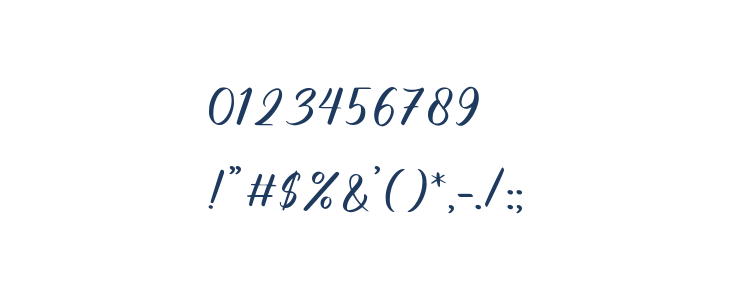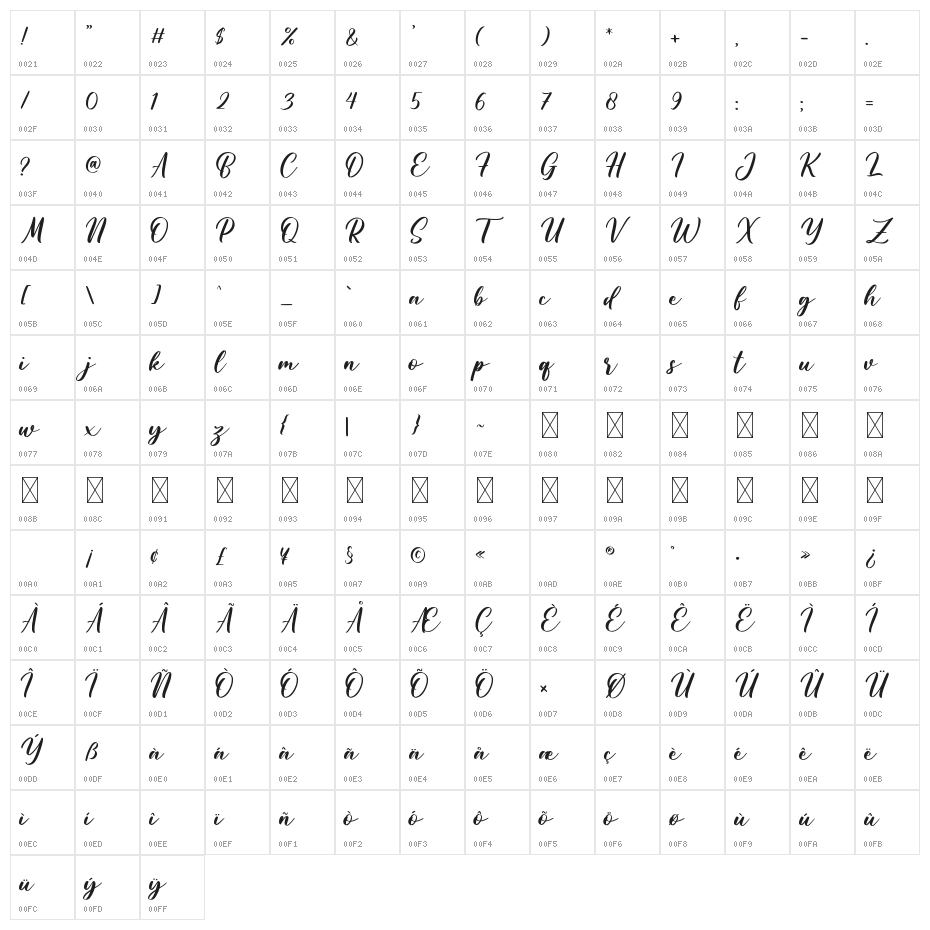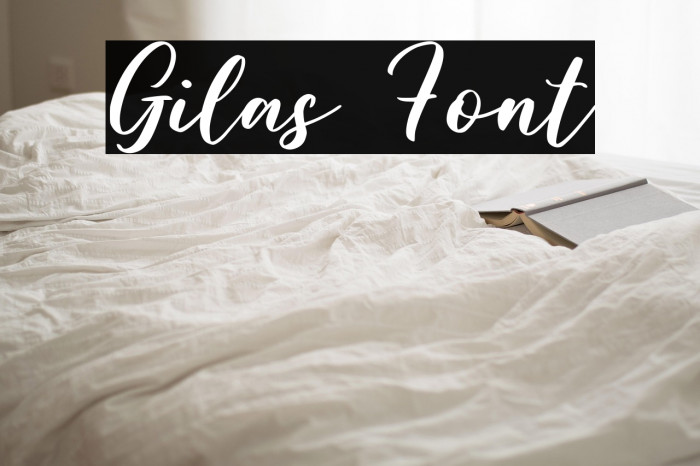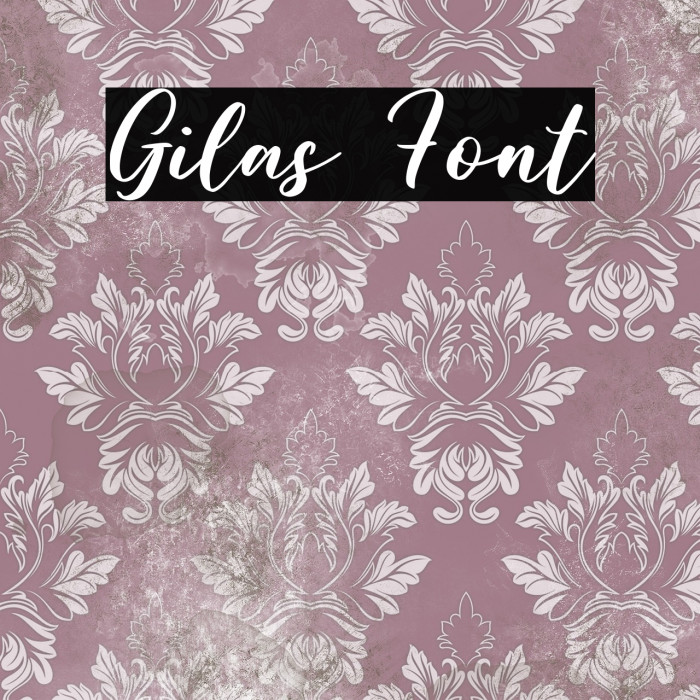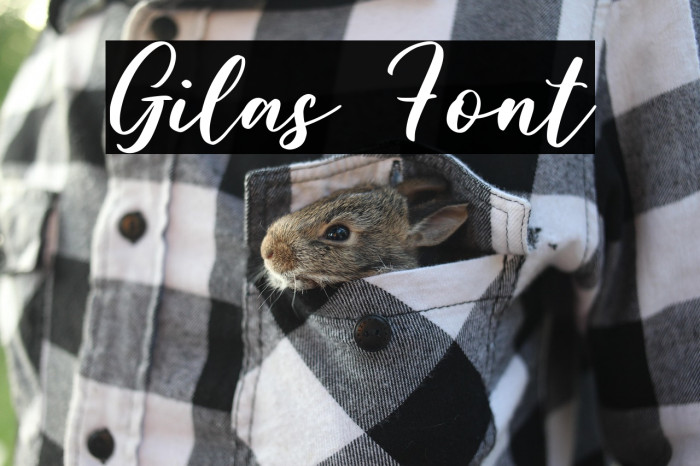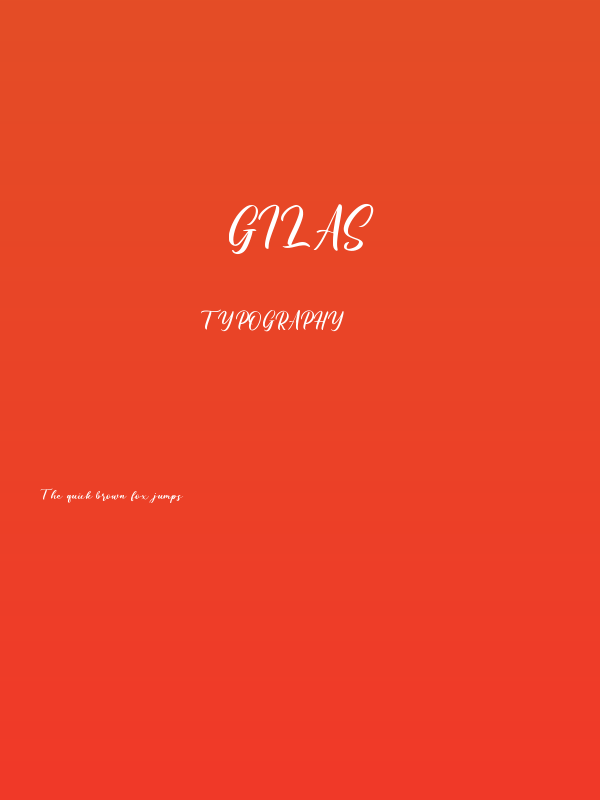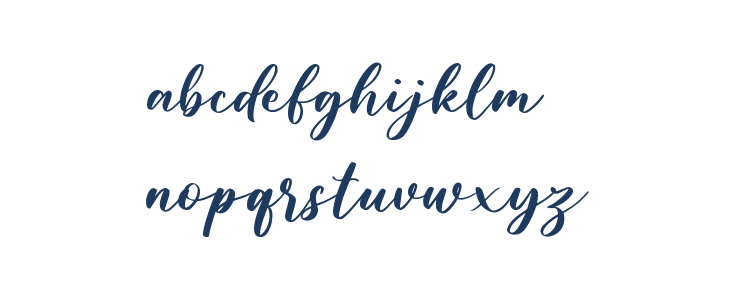
Gilas Font
Gilas Description
This elegant script font features flowing, cursive letterforms that exude a sense of sophistication and grace. The uppercase letters are tall and slightly slanted, with smooth, sweeping curves that create a sense of movement and fluidity. The lowercase letters maintain a consistent style, with rounded edges and a harmonious balance between thick and thin strokes. The numbers are well-integrated into the overall design, maintaining the same cursive style. Special characters are designed with the same attention to detail, ensuring they complement the alphabetic characters seamlessly. This font is perfect for projects that require a touch of elegance and style, such as wedding invitations, branding, and high-end product packaging.
| Overall Style | Elegant |
| Use Case | Logos, Invitations, Branding |
| Proposed Projects | Ideal for wedding invitations, luxury branding, elegant product packaging, and personal stationery. |